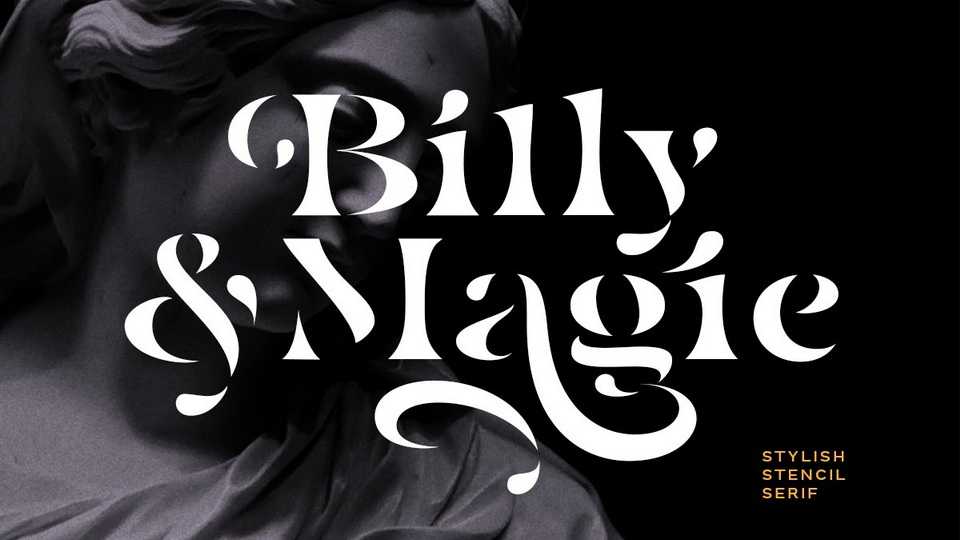
Download Billy Magie font, a stylish and bold stencil serif typeface with a bunch of ligatures and alternates that will make your presentation looks amazing and sophisticated.